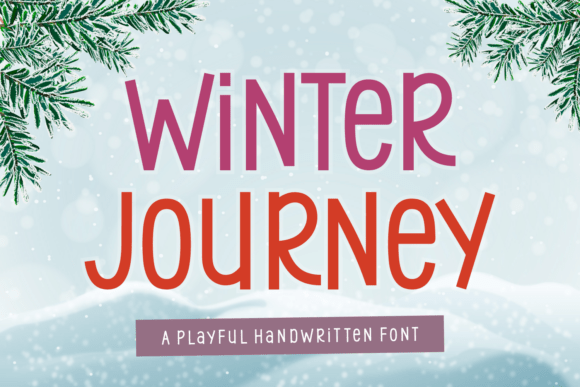
Winter Journey Font: A Spirited Handwritten Font for Your Creative Projects
Are you looking for a font that embodies the essence of the changing seasons? Look no further than the Winter Journey font, a spirited handwritten font that is perfect for adding a touch of whimsy and modern elegance to your creative projects. In this article, we’ll take a closer look at the Winter Journey font, its features, and how you can use it to elevate your designs.
What is Winter Journey Font?
Winter Journey is a carefully crafted handwritten font that combines the magic of the winter season with the vibrancy of modern design. This multifaceted typeface is perfect for a wide range of creative projects, from photography and branding to quotes, crafts, and product text. Its unique blend of whimsical celebration and modern elegance makes it an excellent choice for designers looking to add a touch of personality to their work.
Key Features of Winter Journey Font
- Spirited Handwritten Font: Winter Journey is a handwritten font that exudes a sense of playfulness and creativity.
- Multifaceted Typeface: This font is perfect for a wide range of creative projects, from photography and branding to quotes, crafts, and product text.
- Whimsical Celebration: Winter Journey combines the magic of the winter season with a touch of whimsy and modern elegance.
- Modern Elegance: This font is perfect for designers looking to add a touch of sophistication and elegance to their work.
Perfect for Creative Projects
Winter Journey font is perfect for a wide range of creative projects, including:
- Photography: Add a touch of elegance and sophistication to your photography projects with Winter Journey font.
- Branding: Use Winter Journey font to create a unique and memorable brand identity for your business.
- Quotes: Add a touch of whimsy and inspiration to your quote designs with Winter Journey font.
- Crafts: Perfect for crafters, Winter Journey font can add a personal touch to your handmade projects.
- Product Text: Use Winter Journey font to add a touch of elegance and sophistication to your product text.
- T-Shirt Designs: Winter Journey font is a vibrant choice for T-shirt designs, adding a touch of playfulness and creativity to your apparel.
Why Choose Winter Journey Font?
So, why choose Winter Journey font for your creative projects? Here are just a few reasons:
- Unique and Memorable: Winter Journey font is a unique and memorable font that will help your designs stand out from the crowd.
- Playful and Elegant: This font combines playfulness and elegance, making it perfect for a wide range of creative projects.
- Multifaceted: Winter Journey font is perfect for a wide range of creative projects, from photography and branding to quotes, crafts, and product text.
- Easy to Read: Despite its playful nature, Winter Journey font is easy to read, making it perfect for body text and headlines.
Tips for Using Winter Journey Font
Here are a few tips for using Winter Journey font in your creative projects:
- Use it as a Headline Font: Winter Journey font is perfect for headlines and titles, adding a touch of elegance and sophistication to your designs.
- Pair it with Other Fonts: Experiment with pairing Winter Journey font with other fonts to create a unique and memorable design.
- Use it for Body Text: Despite its playful nature, Winter Journey font is easy to read, making it perfect for body text.
- Add a Personal Touch: Use Winter Journey font to add a personal touch to your designs, making them more relatable and engaging.
In conclusion, Winter Journey font is a spirited handwritten font that is perfect for adding a touch of whimsy and modern elegance to your creative projects. Its multifaceted nature makes it perfect for a wide range of creative projects, from photography and branding to quotes, crafts, and product text. With its unique blend of playfulness and elegance, Winter Journey font is sure to elevate your designs and help them stand out from the crowd.